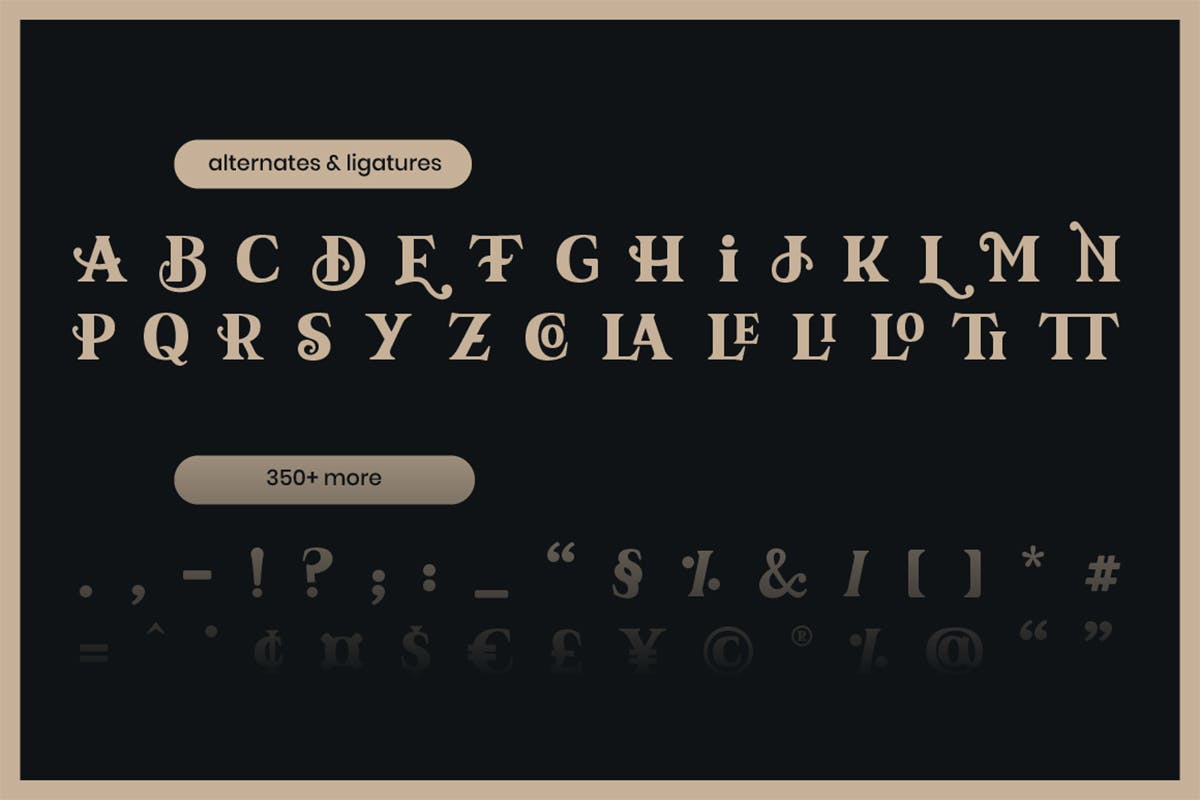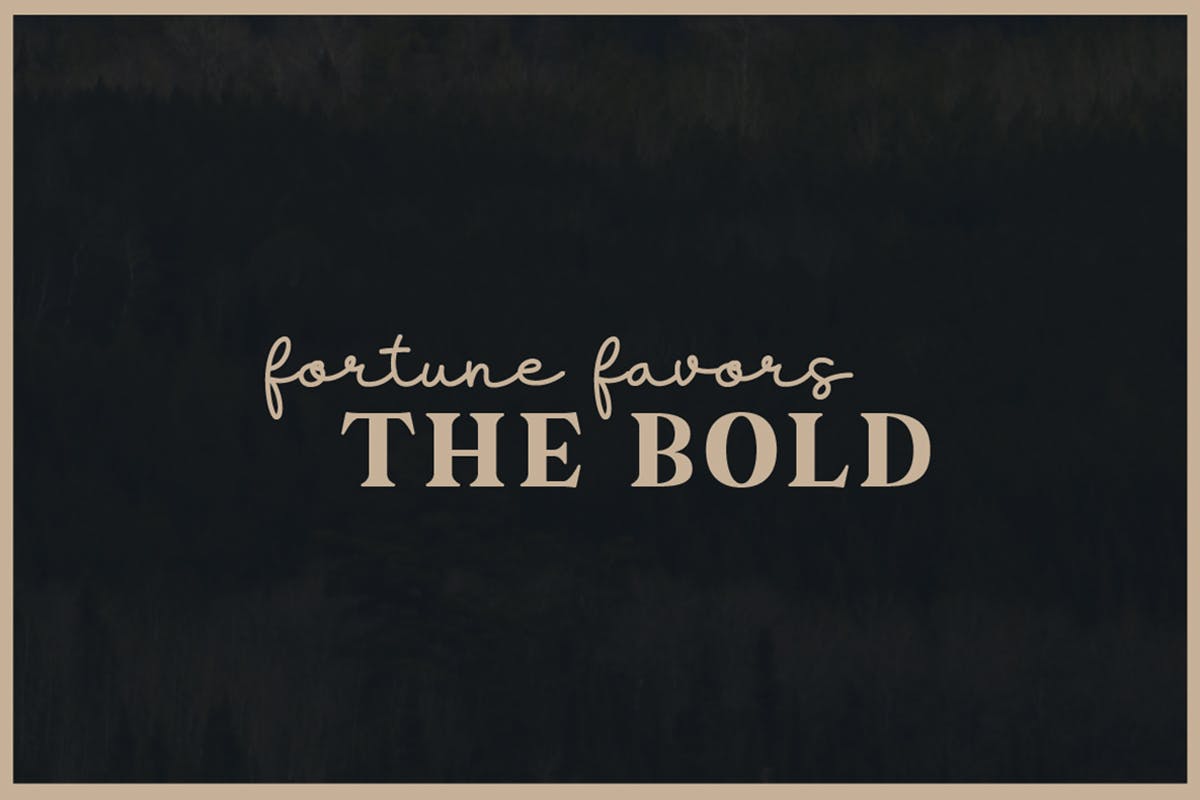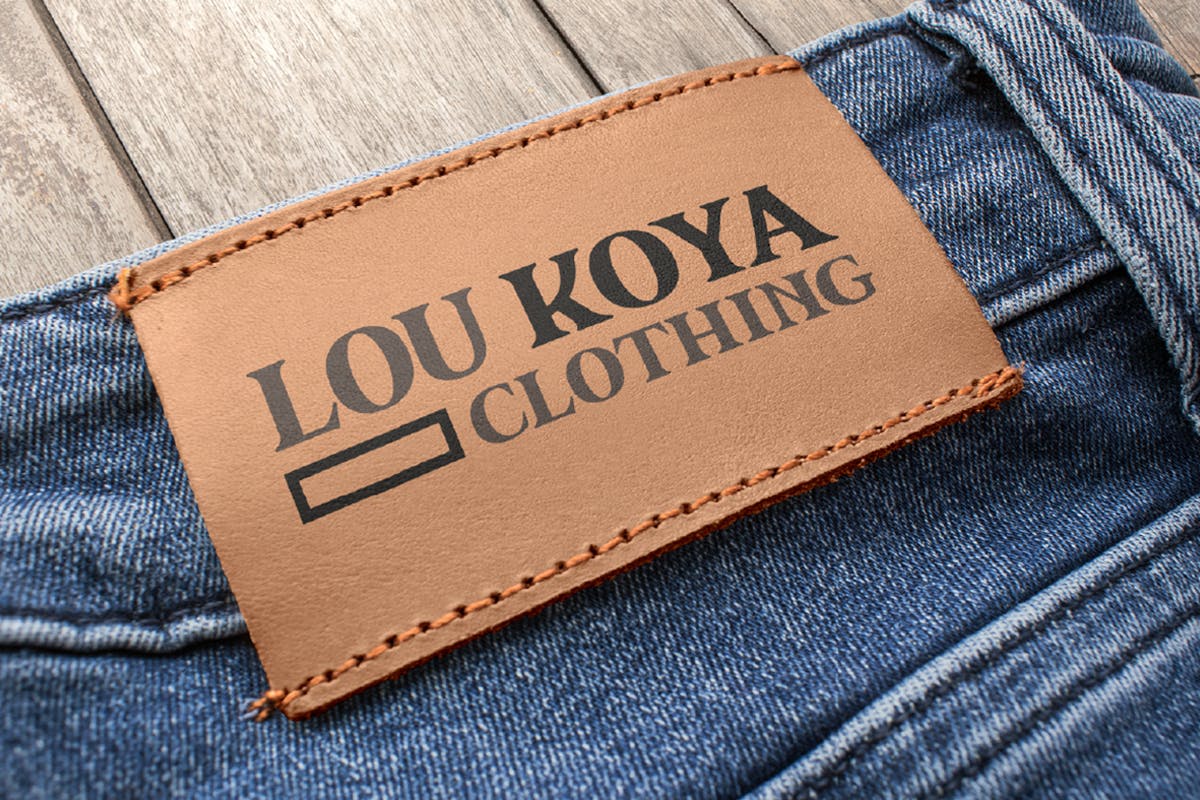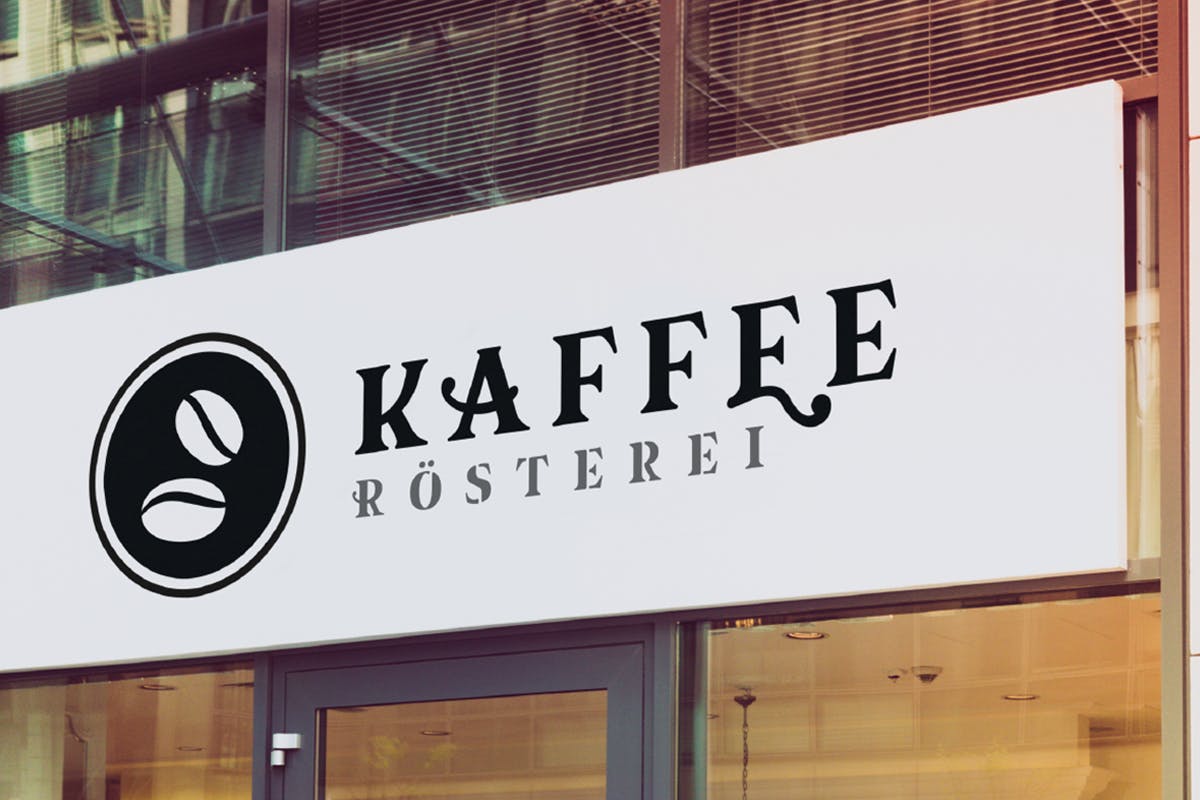
Free Demo Equil Serif Font
Free Demo Equil Serif Font is a beautiful serif with a stencil. It will suit many projects such as fashion, wedding invitations, books, magazines, logo, branding, photography, invitations, and more. This font is available for two format files which are OTF and TTF. However, This free font is coming with a personal use license. If you don’t want to get any trouble when you use it on a commercial project, please purchase the premium version.